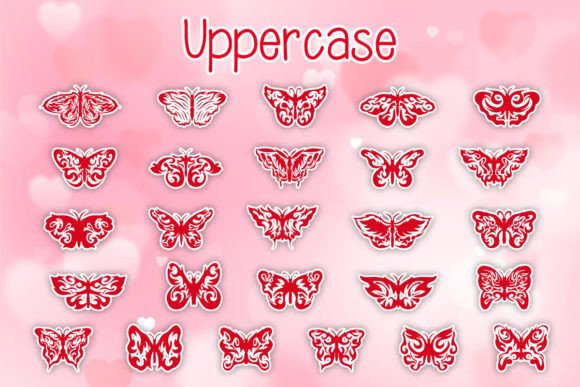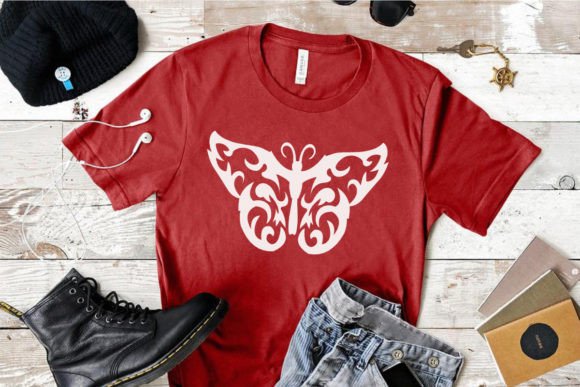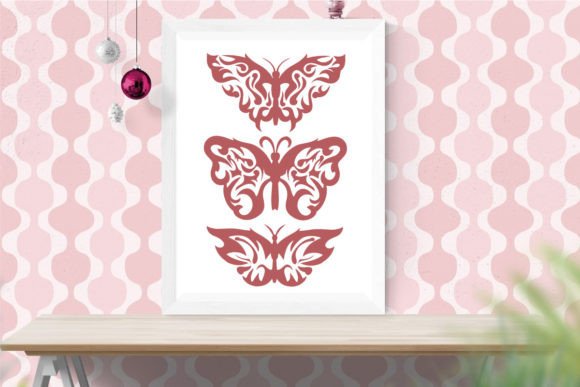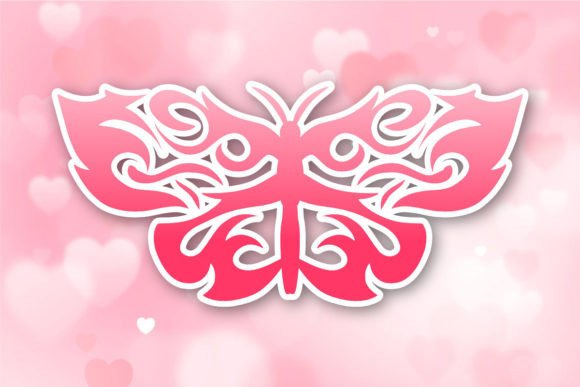
Butterfly is a delightful dingbat font that showcases a collection of beautiful hand-drawn butterfly ornaments. With its aesthetic appeal and intricate details, this font is perfect for various digital crafts and creative projects. Whether you’re working on Cricut designs, t-shirts, wall art, stickers, tattoos, or any other medium, Butterfly will bring a touch of charm and elegance to your creations.
The butterfly ornaments featured in this font are meticulously crafted, capturing the delicate beauty of these winged creatures. Each glyph represents a unique butterfly design, allowing you to add a whimsical and nature-inspired element to your projects. The hand-drawn aesthetic of the font adds a personal and artistic touch, making it ideal for those seeking a unique and visually appealing style.
One of the key advantages of Butterfly is its compatibility with digital cutting machines like Cricut. You can easily incorporate these butterfly ornaments into your Cricut designs, creating intricate and detailed patterns for various purposes. From customized decals to embellished clothing, the possibilities are endless. Let your imagination soar as you explore the versatility of Butterfly in your Cricut projects.
Furthermore, Butterfly can be used for creating eye-catching designs on t-shirts. Whether you’re designing for personal use or for a business, the butterfly ornaments will add a touch of whimsy and beauty to your apparel. Combine them with other design elements or use them as standalone accents to create unique and stylish t-shirt designs that stand out.
If you’re into home decor or DIY projects, Butterfly can be a wonderful choice for creating wall art. Whether you’re designing prints for framing or vinyl decals for wall stickers, the intricate butterfly ornaments will enhance the aesthetic appeal of your creations. Let these graceful creatures bring a sense of wonder and natural beauty to your living spaces.
Additionally, Butterfly is suitable for designing stickers and tattoos. Create a series of enchanting butterfly stickers for journals, scrapbooks, or laptop decals. The intricate details of the ornaments will make your stickers visually captivating and perfect for adding a touch of charm to your personal items. Similarly, use Butterfly as a reference for designing elegant and artistic butterfly tattoos that are as unique as they are beautiful.
In summary, Butterfly is a dingbat font that offers an array of aesthetic butterfly hand-drawn ornaments. Its versatility and compatibility with various digital crafts make it a valuable asset for your creative projects. Whether you’re working on Cricut designs, t-shirts, wall art, stickers, tattoos, or any other medium, Butterfly will help you infuse your creations with the delicate beauty of these enchanting creatures. Let Butterfly take your digital crafts to new heights of elegance and charm.